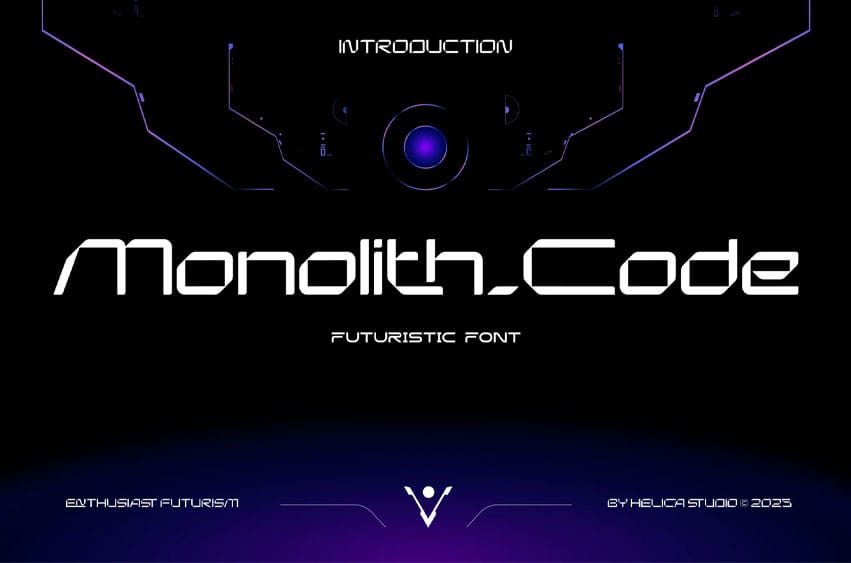
Monolith Code Font Futuristic Font is a sleek, futuristic typeface crafted for technology-driven design. Inspired by data, circuitry, and coding aesthetics, it conveys precision and progress. The font’s clean proportions and monospaced influence give it a mechanical yet elegant appeal, reflecting the balance between human creativity and digital logic.
Relevance and Use Cases: Suitable for coding interfaces, digital campaigns, NFT branding, web design, futuristic posters, and corporate tech identity systems.